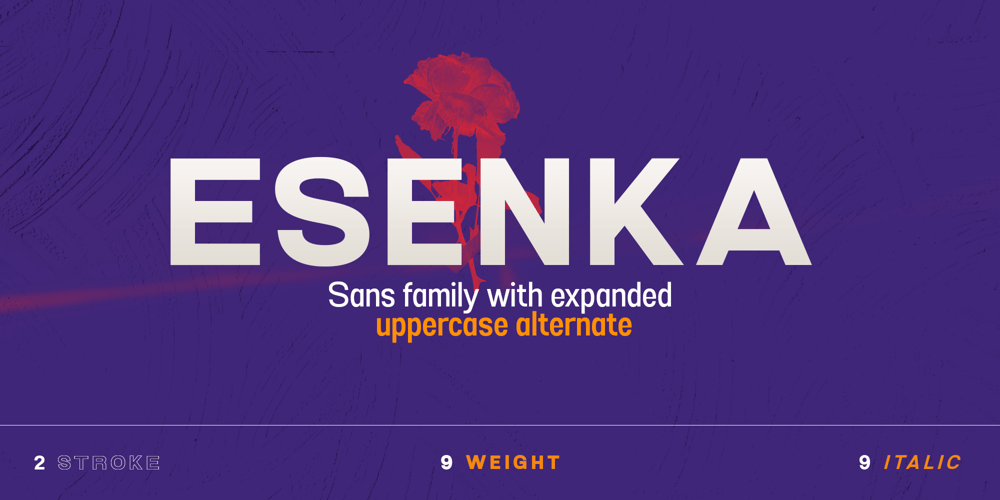
Esenka Font Family was designed by Sidik Sidik and published by Differentialtype. Esenka contains 20 styles and family package options. Esenka is a family sans that comes with 9 weights, 9 italics and 2 outlines. Esenka has an expanded uppercase alternate, with a choice of 2x and 3x width options. Esenka is PUA encoded which mean you can access alternate with ease.